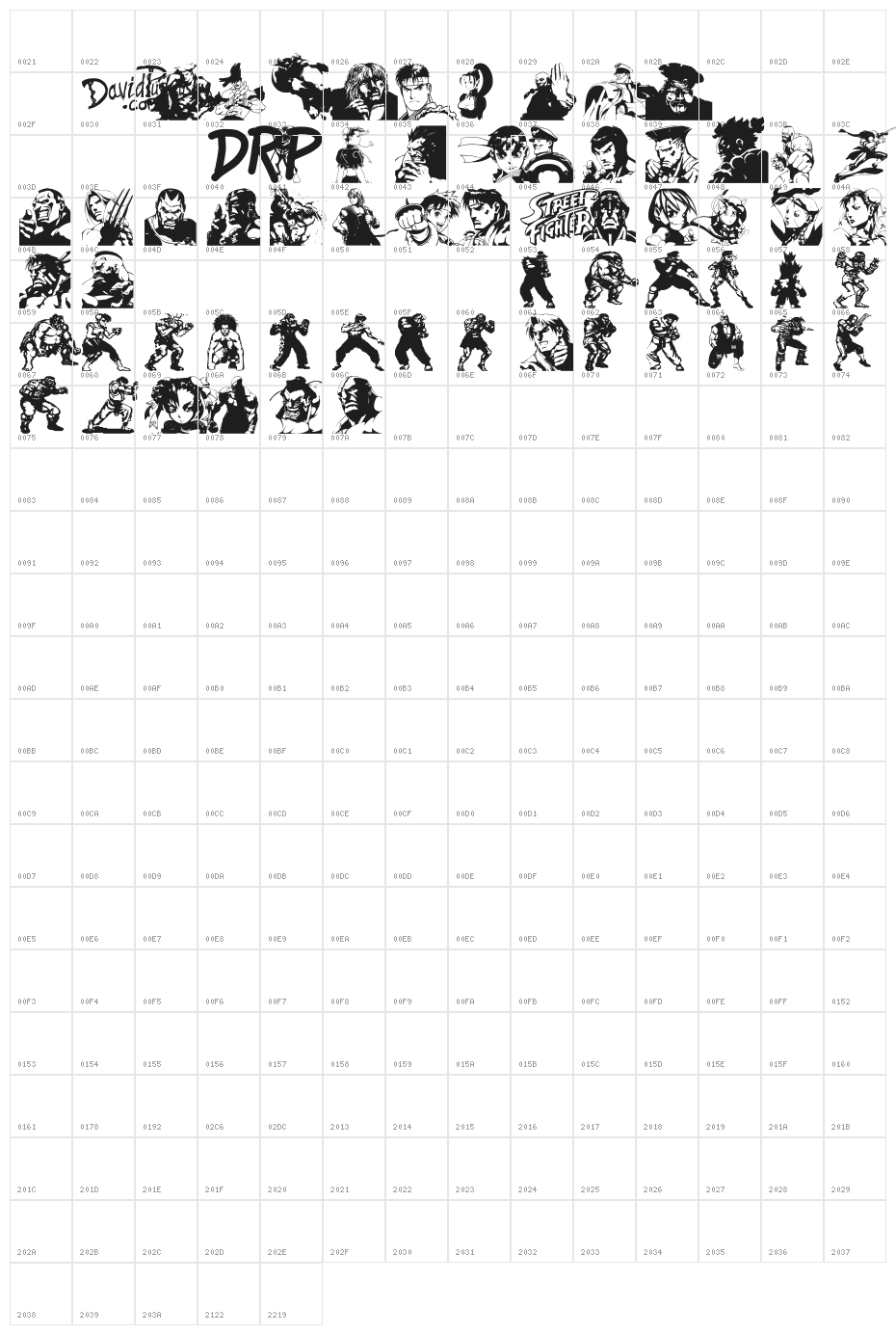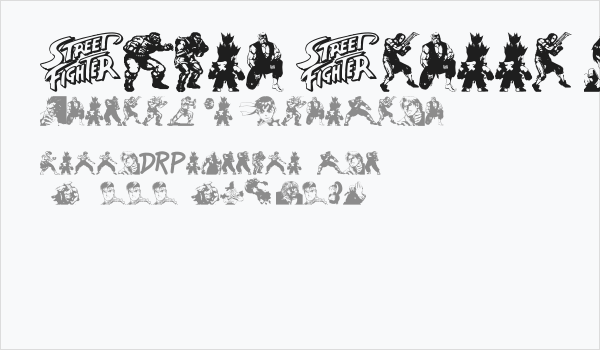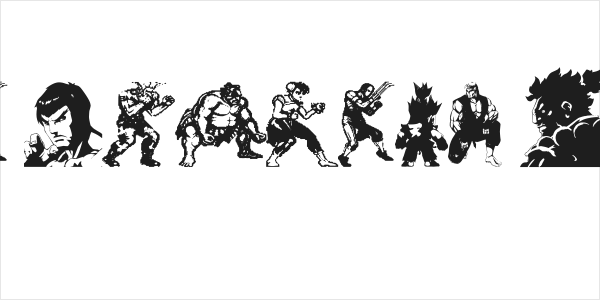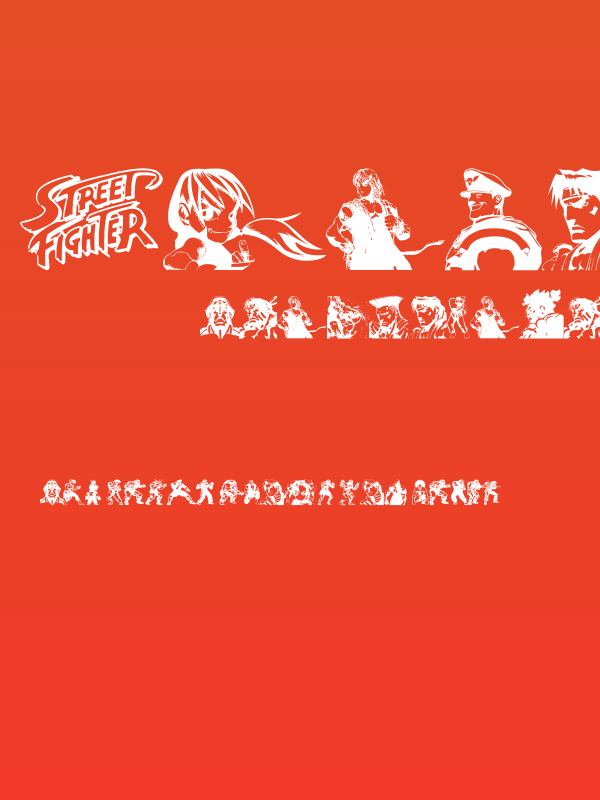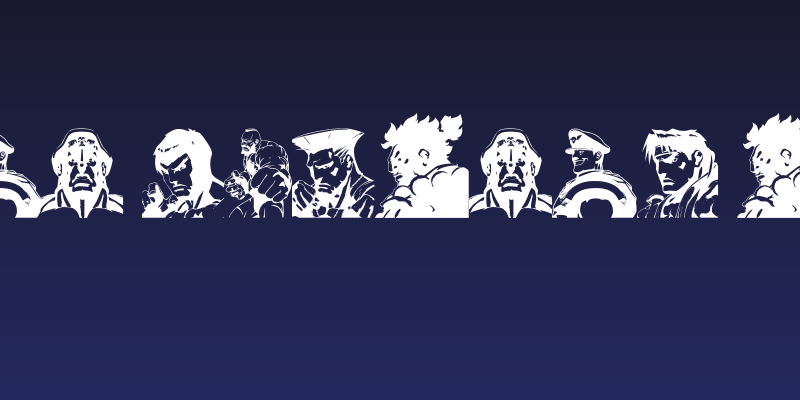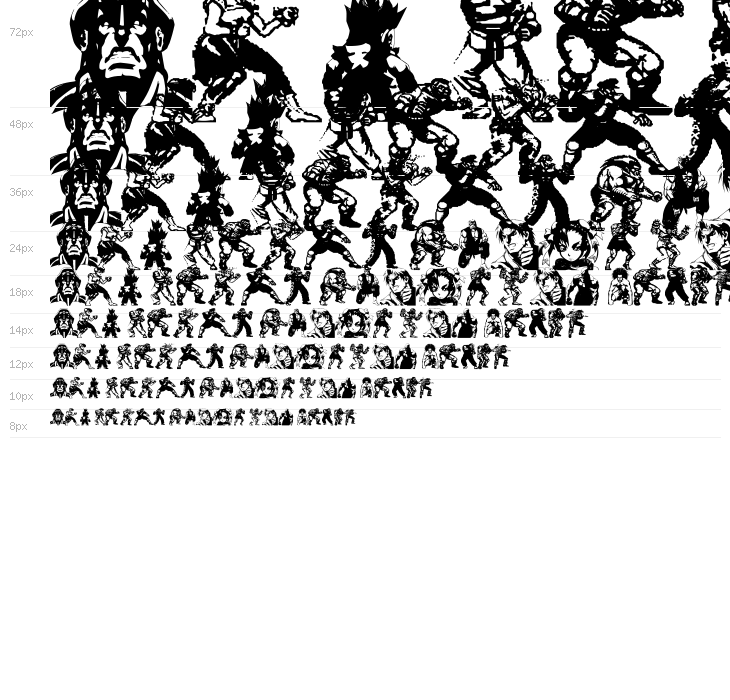
Super Street Fighter Hyper Fonting Font
Super Street Fighter Hyper Fonting Description
A decorative, display font composed entirely of high-contrast, black-and-white illustrations of characters and scenes from a fighting video game, with each glyph represented by a unique, detailed graphic rather than traditional letterforms.
| Overall Style | Decorative, Thematic, Illustrative |
| Use Case | Logos, Headlines, Posters, Themed Graphics |
| Proposed Projects | Posters, fan art, themed event flyers, video game promotions, novelty headlines. |